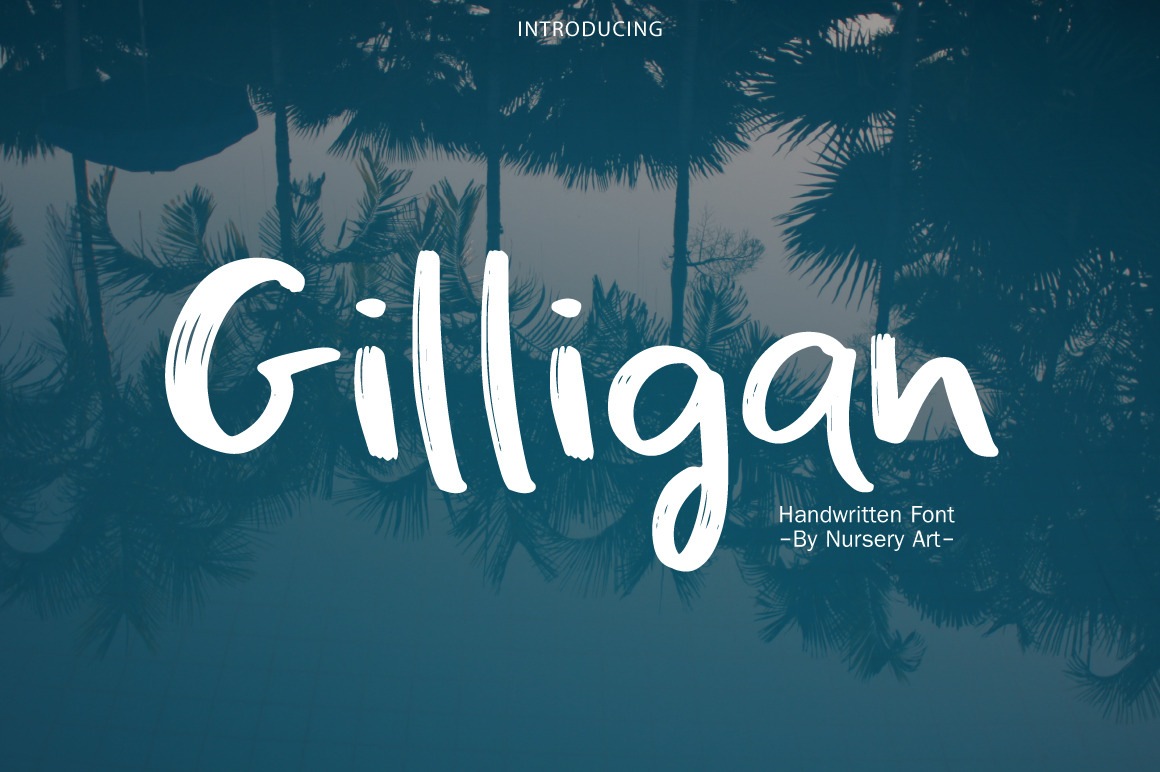
Gilligan | Handwritten Font
Gilligan
it's handwritten modern script font.
The font design is a clean and simple font which perfect for every project, wedding invitation or your blog. Also with their help, you can create a logo or beautiful frame for your home. Or just use for your small business, book covers, stationery and more.